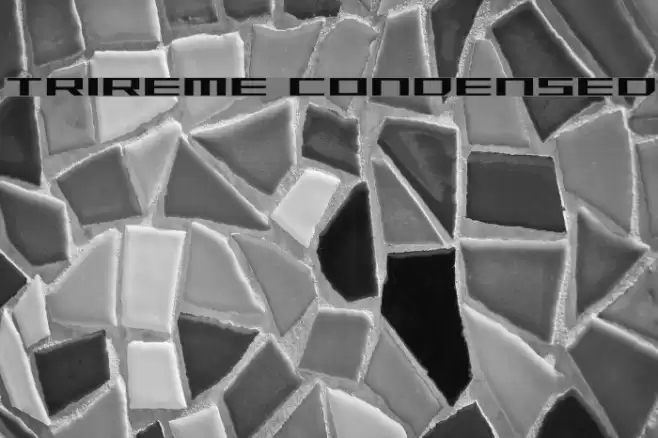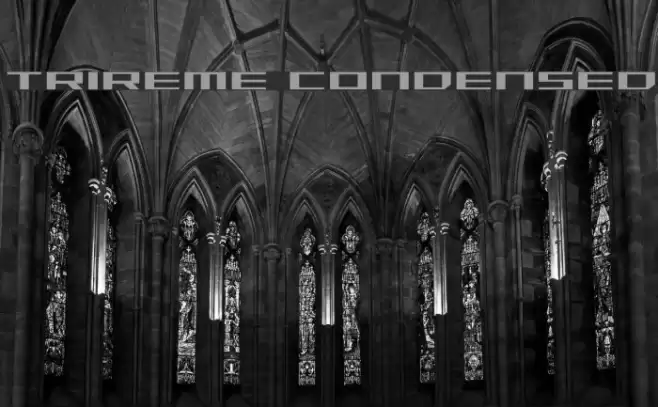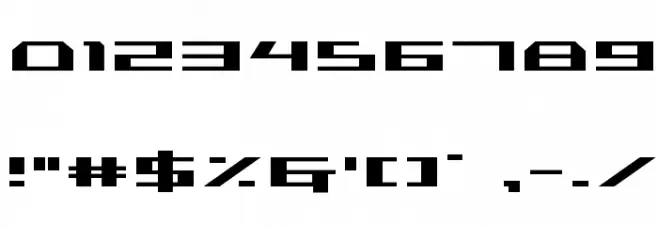
Trireme Condensed Font
Trireme Condensed Description
This font features a bold, geometric design with a distinctly futuristic and digital aesthetic. The characters are constructed with sharp angles and straight lines, creating a sense of precision and modernity. The uppercase and lowercase letters maintain a consistent height, giving the font a uniform appearance. The numbers and special characters follow the same angular style, ensuring cohesion across all glyphs. The condensed width of the characters allows for efficient use of space, making it suitable for headlines and titles where space is limited. The overall style is both striking and functional, ideal for projects that require a modern, tech-inspired look.
A bold, geometric font with a futuristic, digital aesthetic and condensed width from Futuristic fonts.
- Proposed Projects: Ideal for technology branding, video game titles, sci-fi book covers, and digital interfaces.